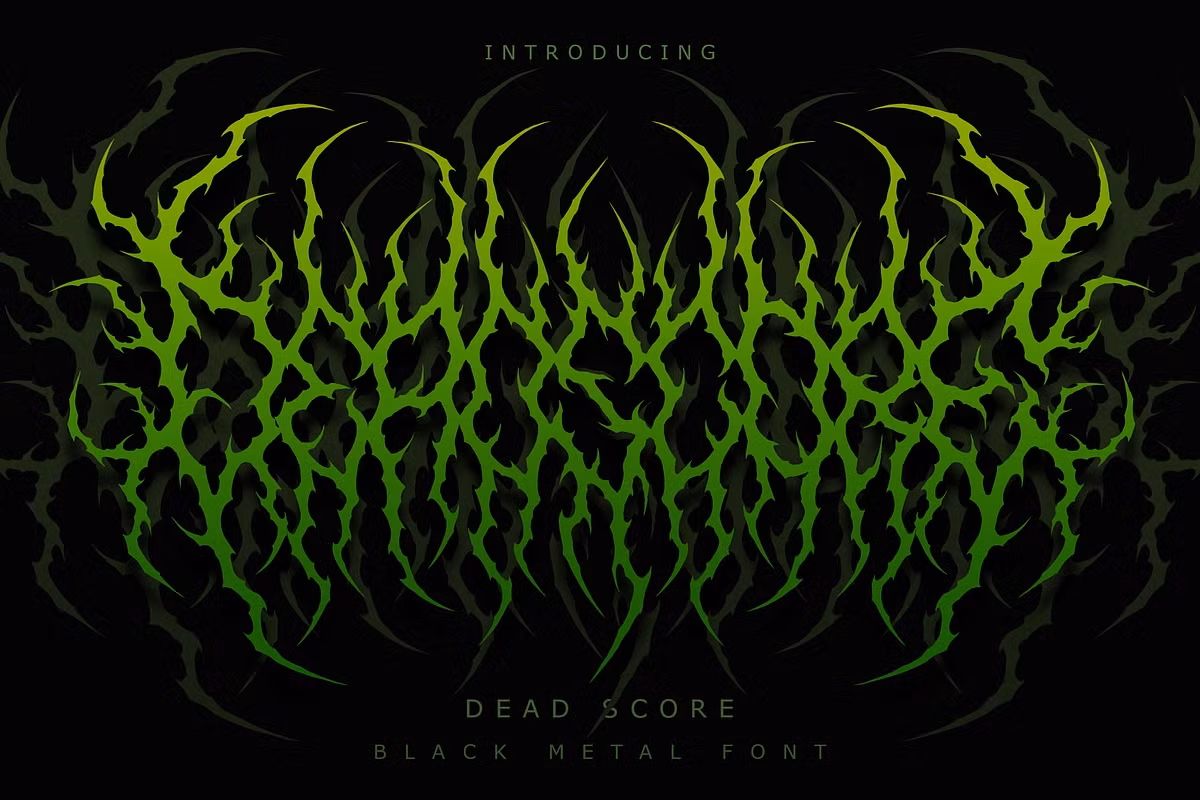
Deadscore Black Metal Font Vol. 8 Free Download is a brutal and intense typeface designed for fans of extreme aesthetics. Inspired by the raw, chaotic energy of black metal music, this font features jagged strokes, distorted lines, and an aggressive visual style that demands attention.
Perfect for band logos, album covers, horror-themed posters, streetwear graphics, and underground event promotions, Deadscore captures the dark, rebellious spirit of the genre. It’s not just a font—it’s a statement.
Vol. 8 of this iconic series pushes the boundaries even further, giving designers a powerful tool to create striking and unforgettable visuals.